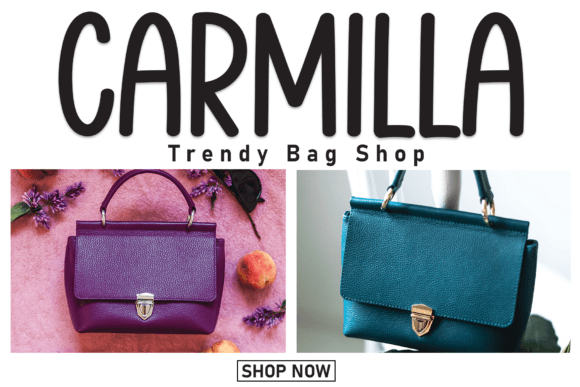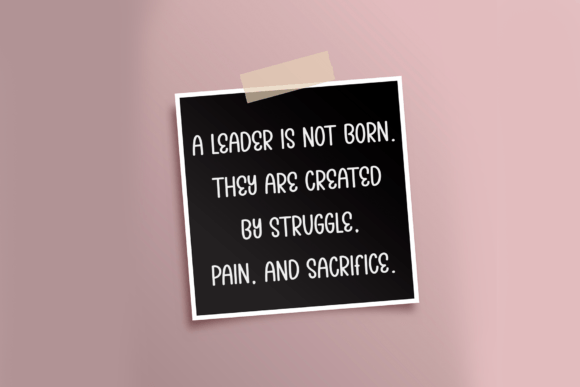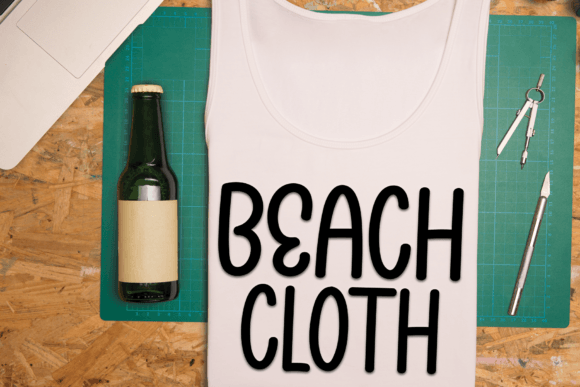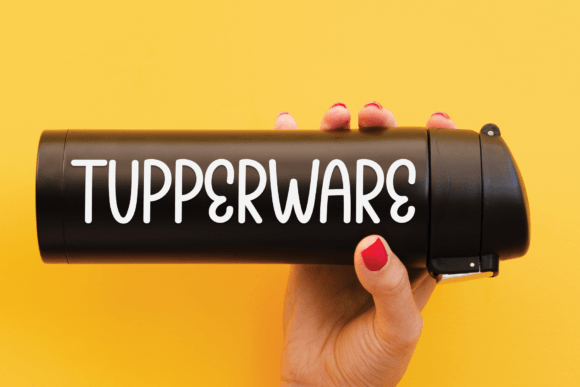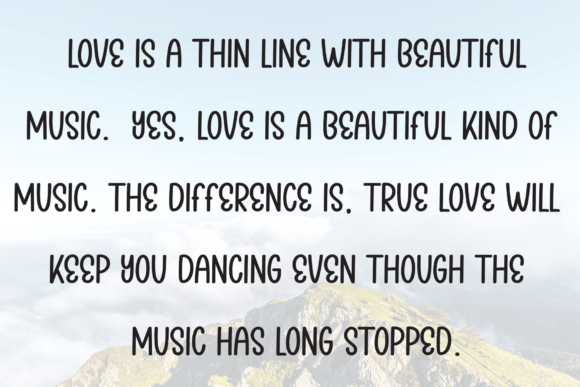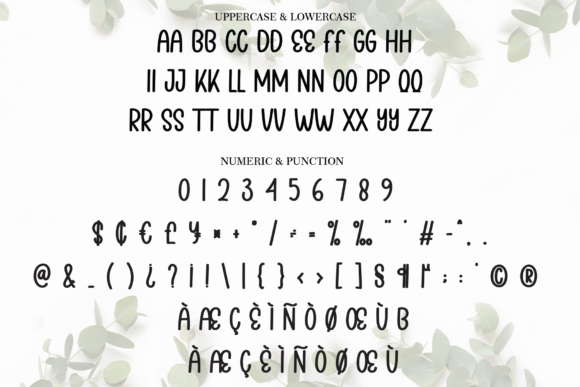
Introduction to Eucaliptus Font
Eucaliptus is a sweet and friendly handwritten font.
Fresh and casual, this font is ideal for writing wedding invitations, cards, or any other design that might need a lovely touch .